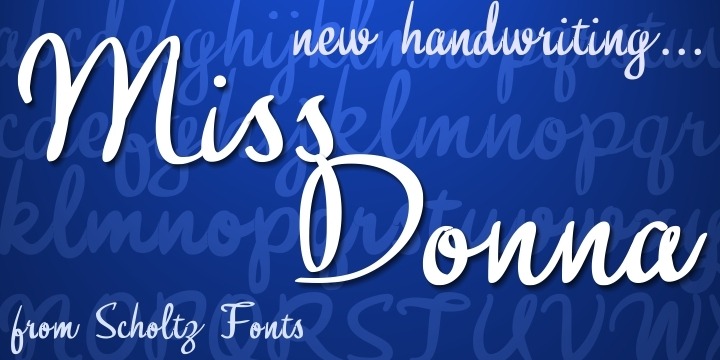
Miss Donna
Font Family by Scholtz Fonts
Miss Donna - contemporary, powerful, versatile and casual. Curvy, sassy, fast-talking, and utterly useable, she takes you into the world of movie posters, decor ads, fashion posters and tags, greeting cards and invitations. Her lines are bold, clean and legible.
Miss Donna Black Caps contains capitals in two sizes and this gives you the ability to generate text of two types:
- a correctly spaced and kerned upper case, OR
- a TRUE Small Caps -- as opposed to the false Small Caps produced by a well-known word processing application. In a correctly proportioned Small Caps the stroke width should not be reduced in the same proportion as the letter height is reduced. The stroke width of the small capitals should rather be equal or close to the stroke width of the corresponding upper case characters.
Miss Donna contains over 235 characters - (upper and lower case characters, punctuation, numerals, symbols and accented characters are present). It has all the accented characters used in the major European languages.